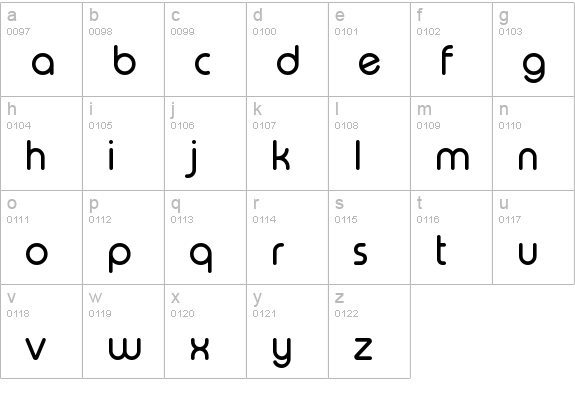
Typo Round Regular Demo is the standard, neutral variant in the Typo typeface family \xE2\x80\x94 well suited to general body text, paragraphs, and standard typographic work.
Typo Round Regular Demo font is a delightful and versatile typeface that exudes a sense of playfulness and charm. With its rounded edges and smooth curves, this font is perfect for adding a touch of whimsy to any project. The versatility of Typo Round Regular Demo font is truly remarkable. Whether you're designing a logo, creating a poster, or crafting a website, this font will elevate your design and make it stand out from the crowd. Its clean and legible letters ensure that your message is easily understood, while its unique personality adds a touch of character and originality. What makes Typo Round Regular Demo font even more impressive is that it is free! Yes, you read that right - this incredible font is freely available to download at FontsMarket.com. You can unleash your creativity without worrying about breaking the bank. Now, you can have a professional-looking design without having to spend a dime. So whether you're a seasoned designer looking to add a fresh and modern touch to your work, or a beginner venturing into the world of typography, Typo Round Regular Demo font is the perfect choice. With its free availability and its ability to bring a sense of joy to your designs, this font is a must-have in your font collection. Download Typo Round Regular Demo font at FontsMarket.com today and let your creativity soar to new heights.